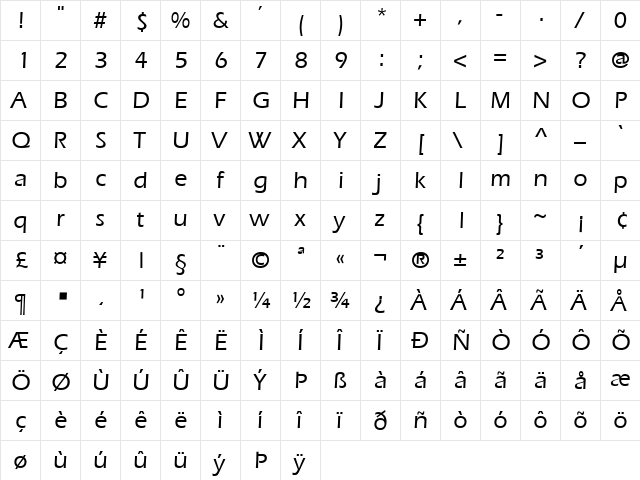
ErieLight Bold
Design Context for ErieLight Typeface
ErieLight offers clean, dependable letterforms without strong stylistic allegiance, making it a practical choice for designers who need flexibility. Its bold stroke weight gives it real presence on the page.
Pro Tip: Pair ErieLight with a font of contrasting weight or personality to build a more expressive typographic hierarchy.